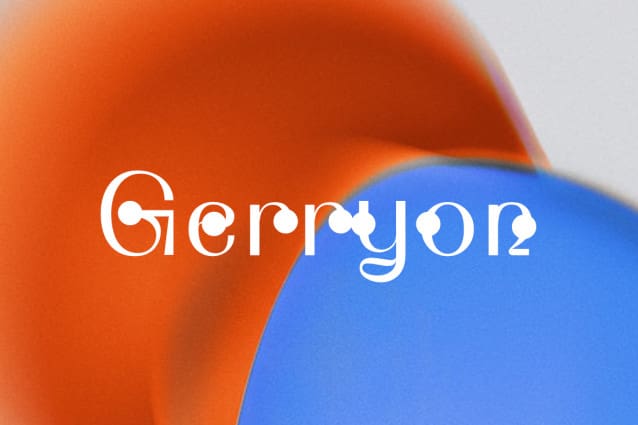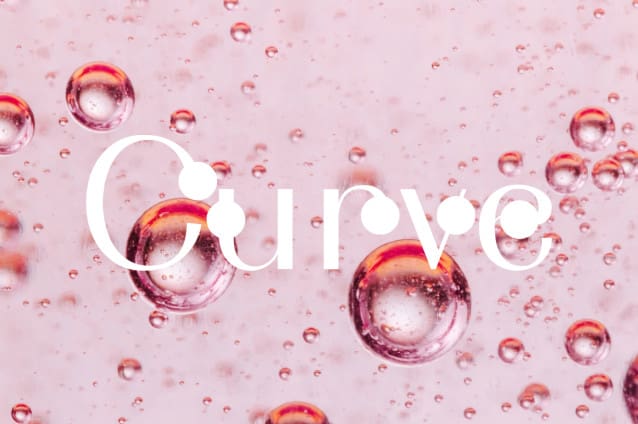
Lemonstyle Sweet Font
Lemonstyle Sweet Font is an exquisite sans-serif font with unexpected twists and accents to create a unique appearance. This typeface is perfect for high-end beauty products or anything fashion-related.
Designer Name: ffeeaarr